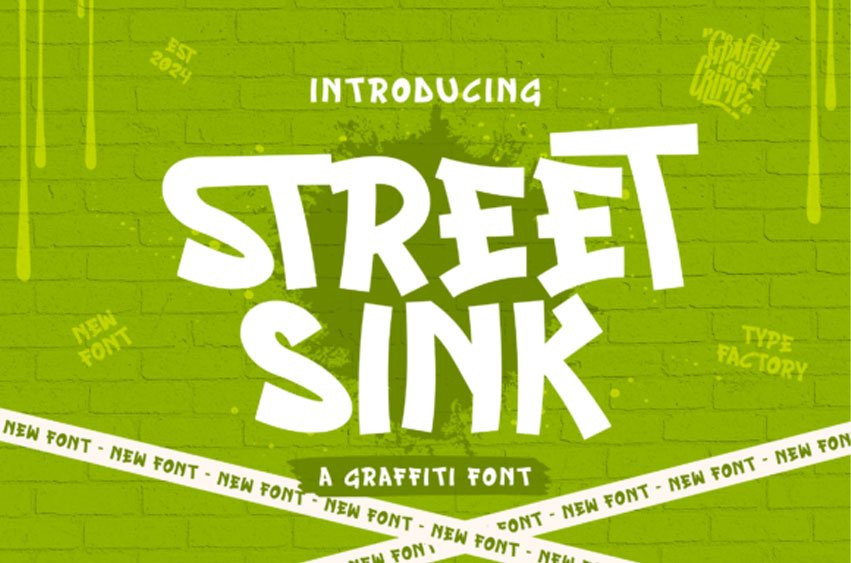
Street Sink Font Step into the vibrant pulse of city life with Street Sink, a graffiti-inspired font that embodies the robust, untamed spirit of urban aesthetics. This typeface manifests in bold strokes, full-bodied forms, and a luminous personality that commands attention.
Whether it’s for concert flyers, album art, urban fashion labels, or innovative projects honoring the unique and the artistic – Street Sink paints your designs with an edge of true authenticity and daring flair. This font walks the print and digital media streets with an electrifying vigor, imbuing your work with the unmistakable ethos of the urban landscape making it an indispensable tool for contemporary creators.